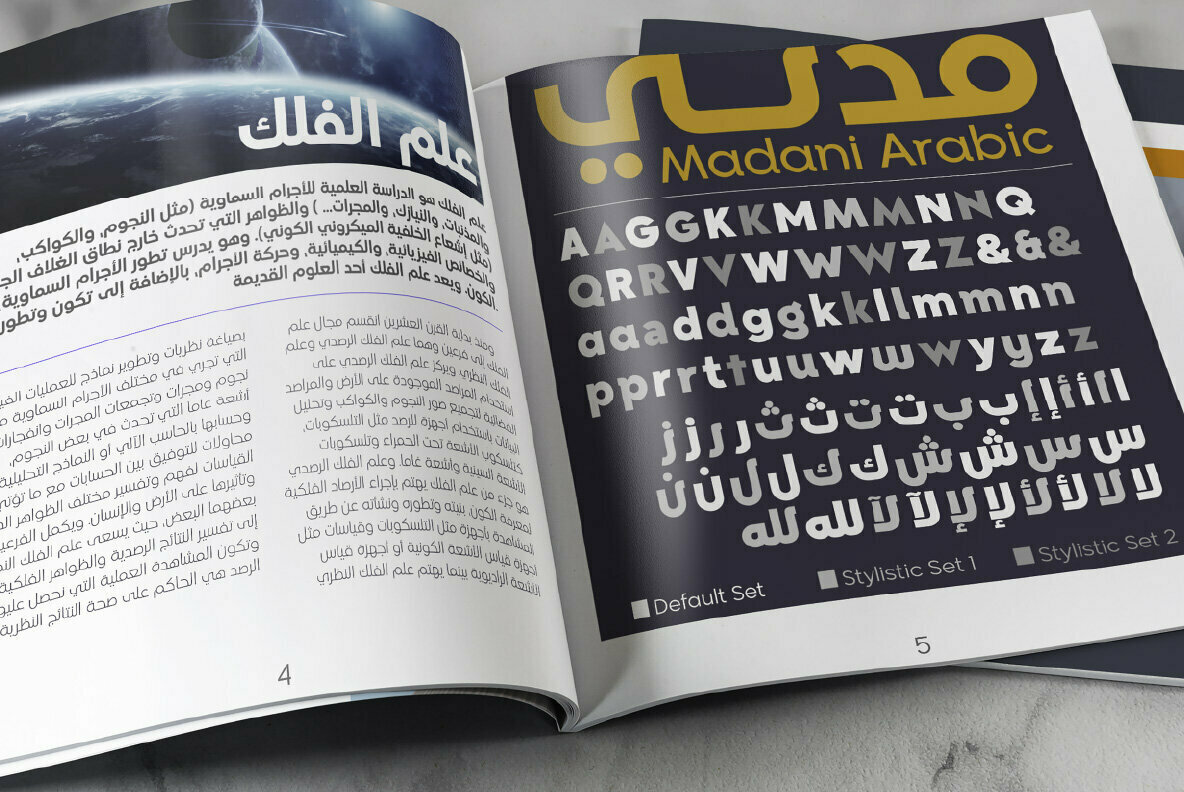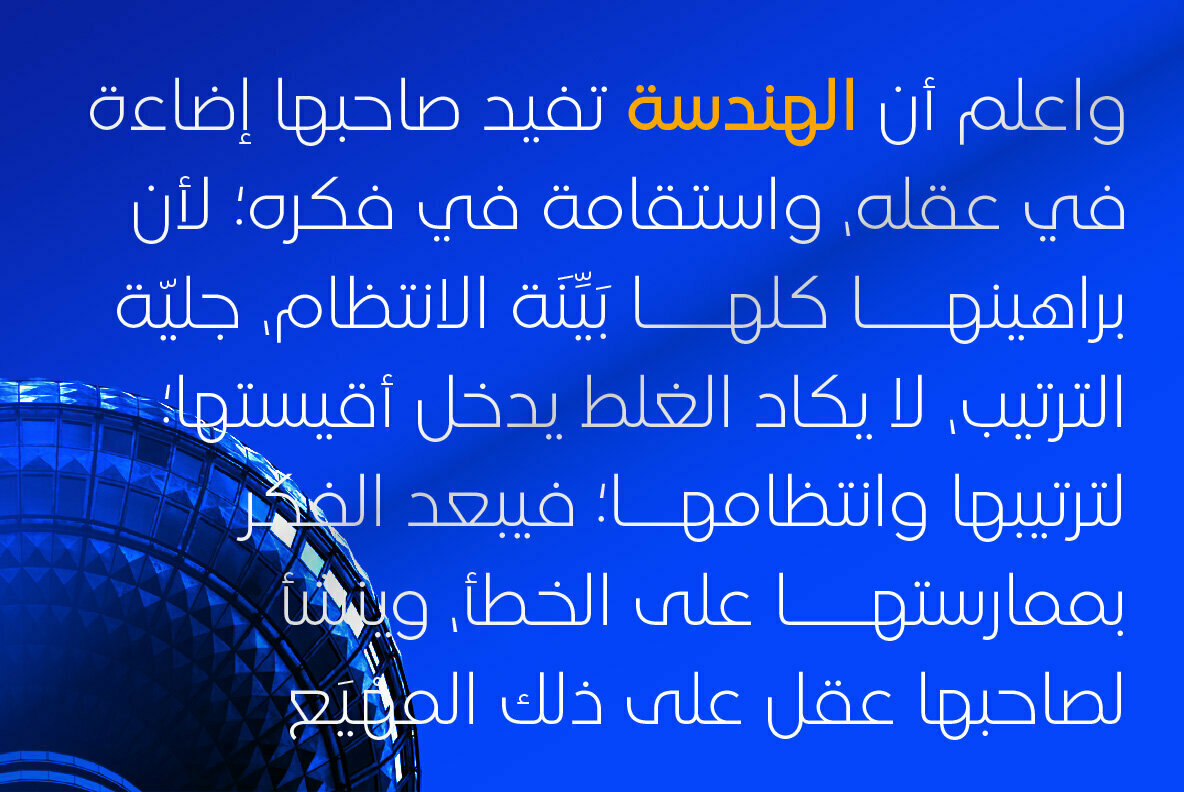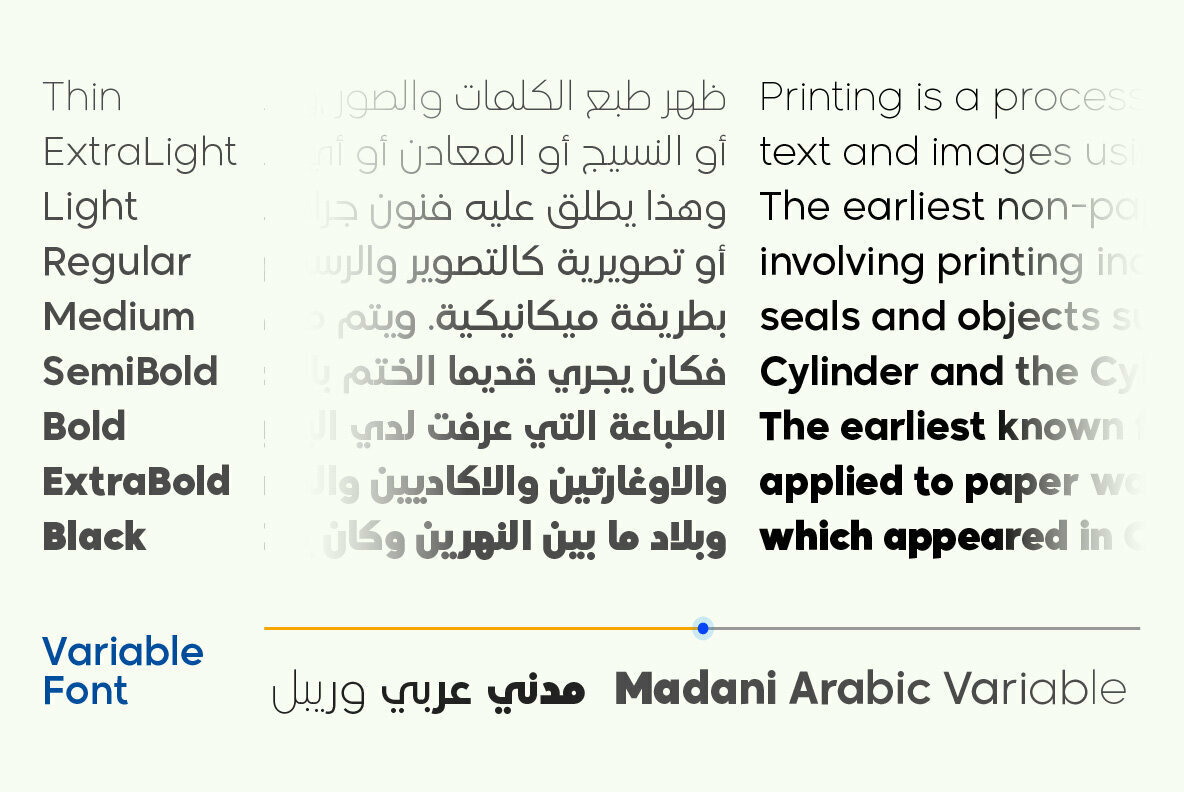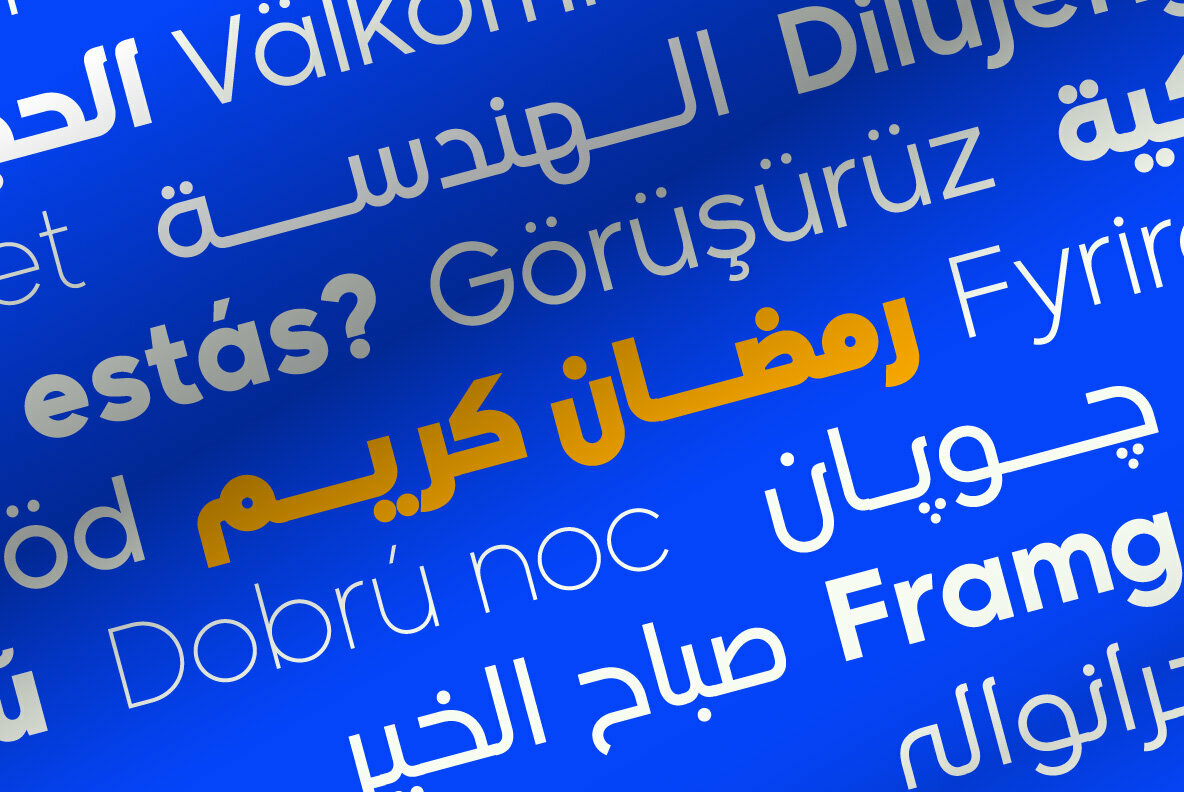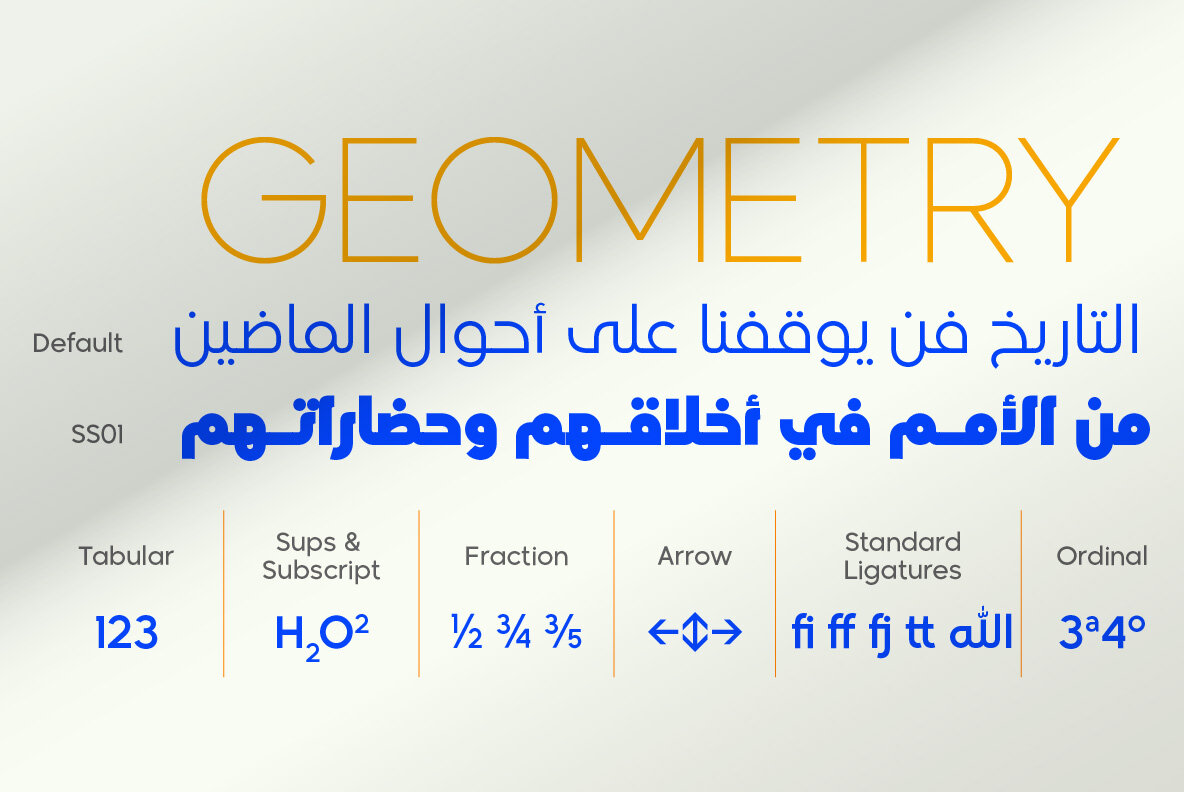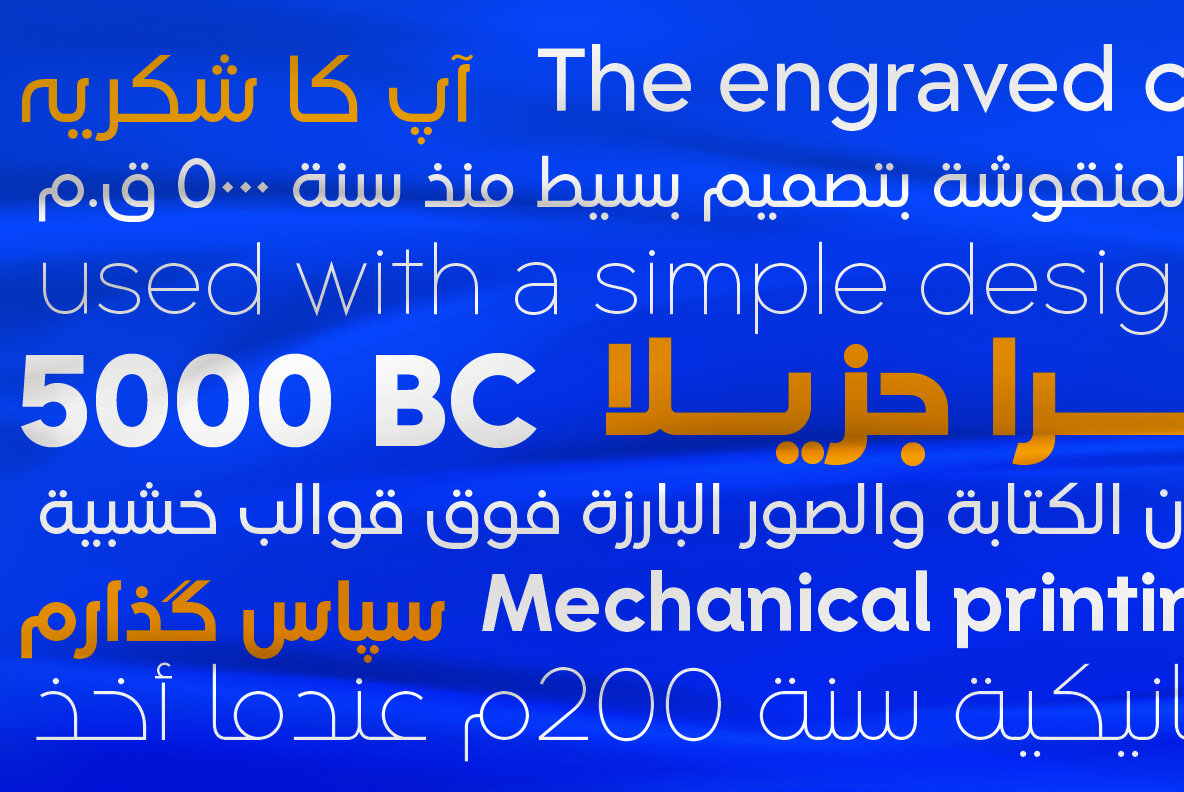
Madani Arabic Font
Madani Arabic is new version of Madani with the addition of Arabic glyphs, for Arabic, Urdu, and Farsi. Basic form for Arabic font is refers to the Arabic Kufi style, with a geometric approach to harmony with Latin.